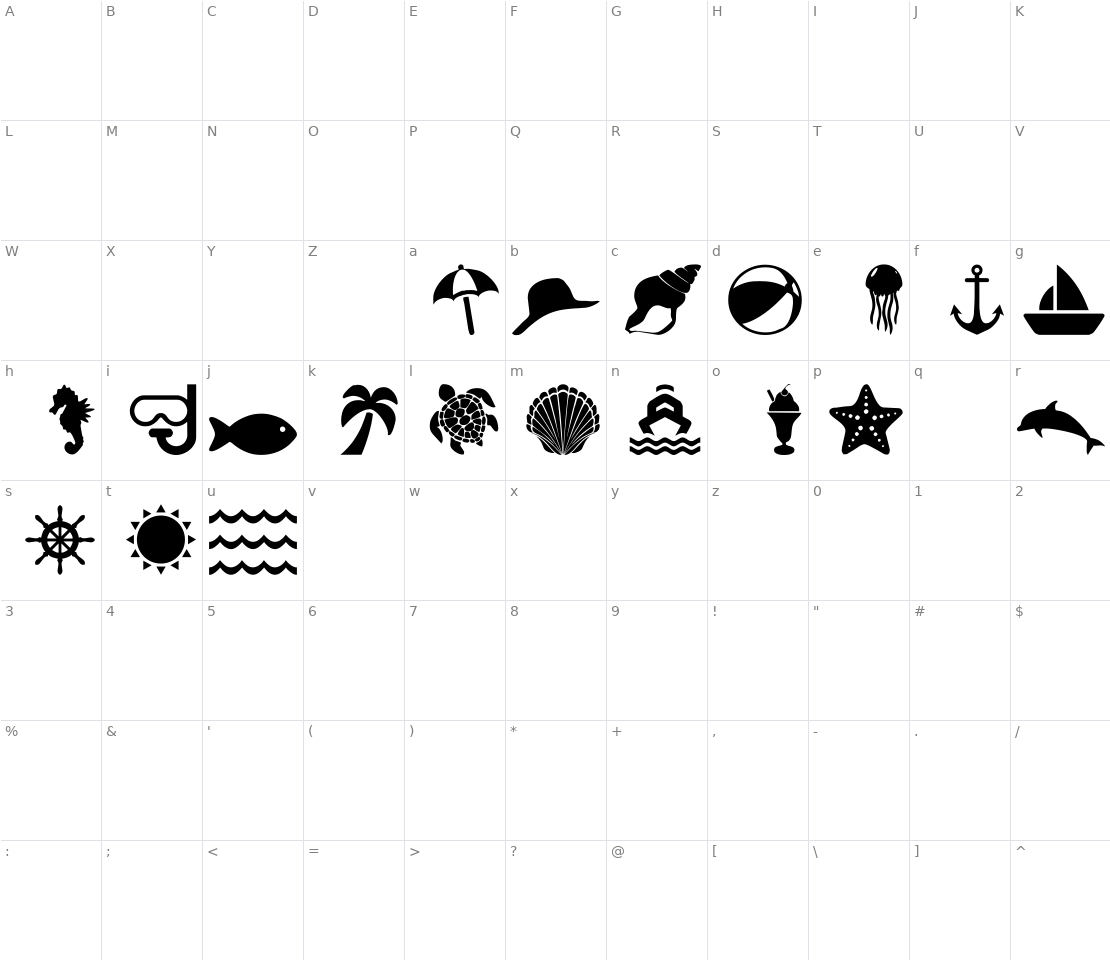
Pikto Tea
by MissGrotesque
Pikto Tea is a symbol font from MissGrotesque filled with tropical and beach-themed silhouette icons: sun, ocean waves, palm trees, and other summer vacation imagery. It's a dingbat set rather than a text face, useful for adding illustrated accents to travel branding, resort signage, invitations, or seasonal graphics without reaching for separate clip art.